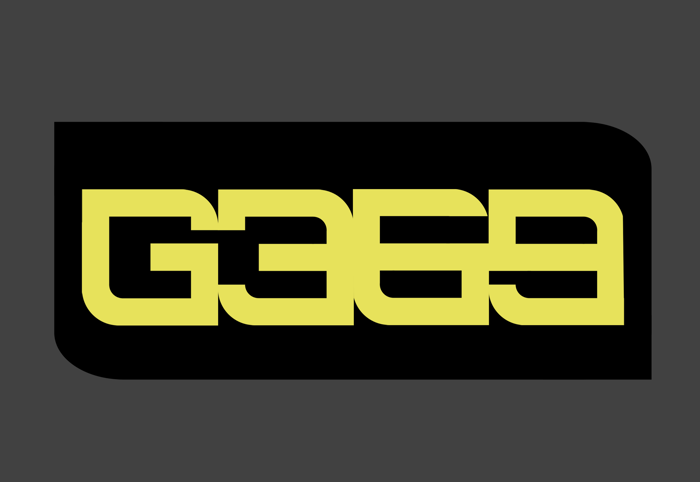
BLACK CAPS Font
Is a strong high-impact font. In my opinion the best way to use it is writing with the caps-lock.
If you set 0 space between characters, you'll have a nice effect, as I did in my logo.
@G369 It's a Windows-based preview. The tops and bottoms of the characters are getting clipped on Windows. You can fix it by adjusting the ascent / descent inside your font (and upload a new version)
@fontspace Yes, I understood it. It cuts the font at 900p of height on the top.
Problem solved. 😄
when I type in this font the top is cut off. I've tried to change the size but I still can only see the bottom of what ever i write. What can I do?
It's a fake preview, I don't know why!
However, this is the real preview image of the font, I'll fix the preview on this site tomorrow.